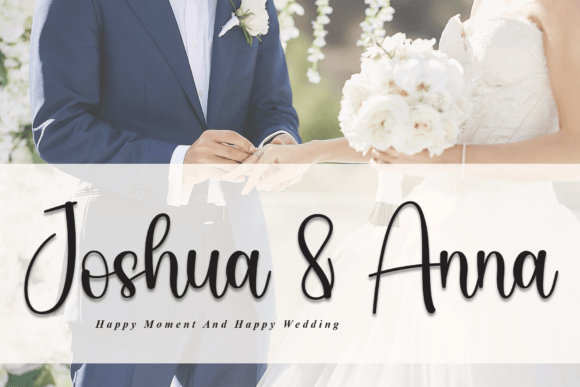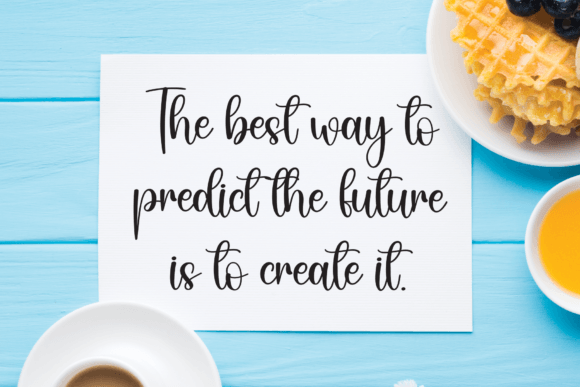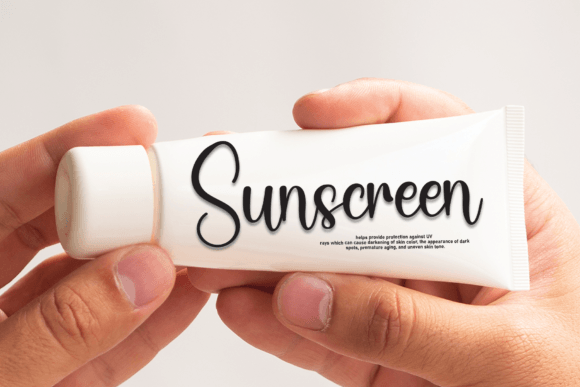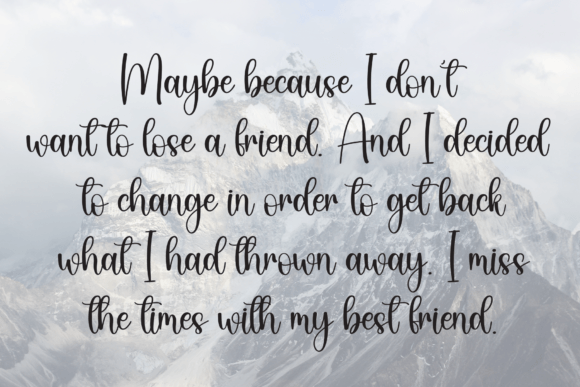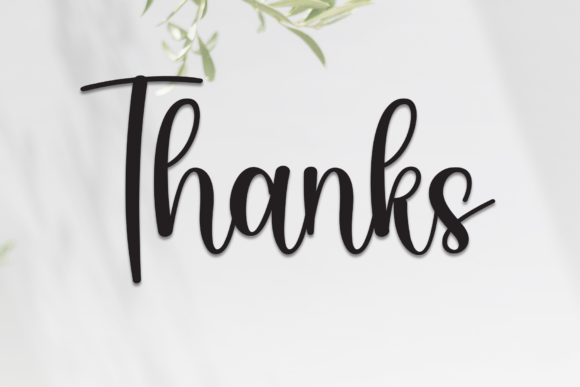
Introducing Butter Signatures Font: Elevate Your Designs with Elegance
In the world of digital design, fonts play a pivotal role in conveying the tone and aesthetic of a project. For designers and crafters seeking to infuse their creations with a touch of sophistication and elegance, Butter Signatures Font emerges as a stellar choice. This stylish and incredibly elegant script font is designed to transform your wedding invitations, thank you cards, quotes, greeting cards, logos, business cards, and a myriad of other designs with a much-needed handwritten touch.
The Essence of Butter Signatures Font
Butter Signatures Font is not just any script font; it’s a meticulously crafted typeface that exudes luxury and refinement. Its fluid strokes and graceful curves lend an air of sophistication to any design, making it an ideal selection for projects where making a statement is paramount. Whether you’re designing for a wedding, a corporate brand, or simply looking to add a personal touch to your stationery, Butter Signatures Font is versatile enough to meet your needs.
Applications of Butter Signatures Font
The versatility of Butter Signatures Font is one of its most compelling attributes. Here are some of the many applications where this font truly shines:
- Wedding Invitations: Add a touch of romance and elegance to your wedding invitations. The flowing script of Butter Signatures Font sets the tone for a sophisticated and memorable event.
- Thank You Cards: Express gratitude with style. The font’s elegant appearance makes it perfect for thank you cards, adding a personal and heartfelt touch to your messages.
- Quotes and Greeting Cards: Elevate inspirational quotes and greeting cards with a sophisticated look that captures attention and conveys emotion effectively.
- Logos and Business Cards: For businesses aiming to project an image of luxury and professionalism, Butter Signatures Font can be a valuable asset in creating distinctive logos and business cards.
Why Choose Butter Signatures Font?
Choosing Butter Signatures Font for your design projects comes with numerous benefits:
- Elegance: It brings an unmatched level of elegance to your designs, setting them apart from more conventional typefaces.
- Versatility: Its adaptability across various design applications makes it a valuable addition to any designer’s toolkit.
- Readability: Despite its script nature, Butter Signatures Font maintains a high level of readability, ensuring your message is conveyed clearly and effectively.
- Uniqueness: In a sea of commonly used fonts, Butter Signatures offers a unique aesthetic that can help your designs stand out.
Tips for Using Butter Signatures Font
To maximize the impact of Butter Signatures Font in your designs, consider the following tips:
- Pair with Simplicity: For maximum effect, pair Butter Signatures Font with simpler, sans-serif fonts to create a balanced look.
- Adjust Size and Color: Experiment with different sizes and colors to emphasize certain words or phrases, adding depth to your design.
- Use in Moderation: While beautiful, script fonts can be overwhelming in large blocks of text. Use Butter Signatures Font strategically to highlight key information or add decorative elements.
Butter Signatures Font is a powerful tool for designers and crafters looking to imbue their projects with elegance and sophistication. Its versatility, readability, and unique aesthetic make it an excellent choice for a wide range of applications. Whether you’re creating wedding invitations, business cards, or simply looking to add a touch of luxury to your designs, Butter Signatures Font is sure to exceed your expectations. Elevate your designs with the refined beauty of Butter Signatures Font and make your projects truly unforgettable.